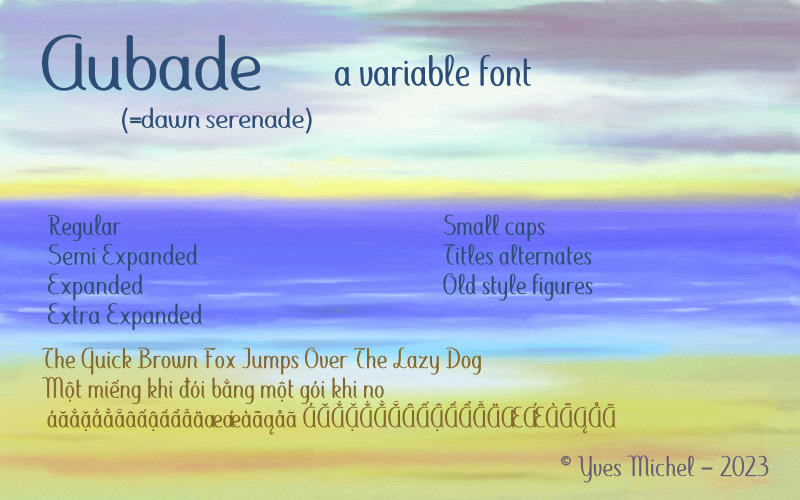
Font name: | Aubade |
Author: | Yves Michel |
Note by Yves Michel | |
Aubade is based on my "Abecedary" font but without non-connected letters. Latin diacritics including Vietnamese, small caps, alternate titles,old style figures... Aubade est bas�e sur ma fonte "Abecedary" mais les lettres ne sont pas connect�es. Nombreux diacritiques, Vietnamiens inclus, petites capitales, chiffres "old style"... |